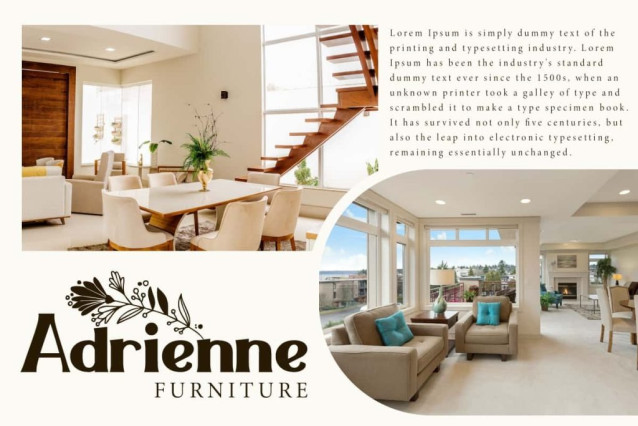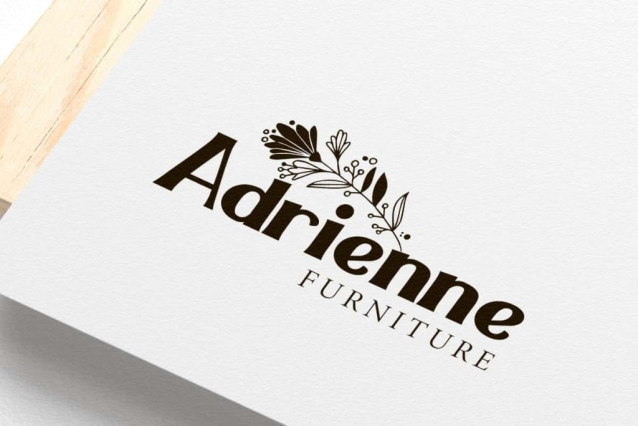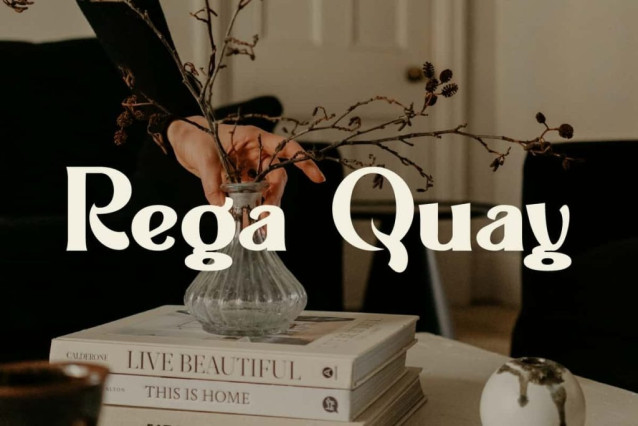
Rega Quay Font
Rega Quay Font is a modern bold display font, with gentle curves that give a soft, warm, and organic feel. This style is different from the others, making this classy font very unique and suitable for blogs, bussines card, card design, headers, headlines, label, logos, mockup, printed materials, poster, product packaging, quotes, sticker, template, title, website, and more.
Rega Quay Font contains a complete set of basic Uppercase and Lowercase characters, Numbers, Punctuation, and Symbols. This font gives users flexibility and creativity in terms of style and appearance of text and helps to realize effective and attractive communication. Perfect for all your creative ideas, such as advertising, digital marketing, fashion, fragrance brand, home furniture, spa salon, and others.